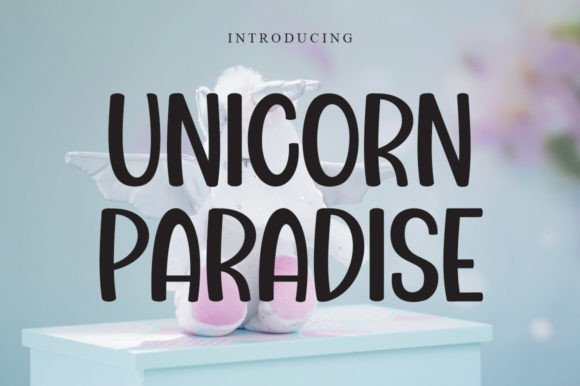
Unicorn Paradise: A Playful Display Font for Digital Branding
I was staring at a blank Figma file, trying to decide on the typography for a new landing page. The client wanted something that felt magical, whimsical, and distinctly playful, but I needed it to remain legible on mobile screens. Standard serif fonts felt too serious, and generic sans serifs lacked character. That’s when I tested Unicorn Paradise. It wasn’t just a font choice; it was a design pivot that changed the entire mood of the project.
As a web designer, I spend a lot of time evaluating typefaces not just for how they look in isolation, but for how they behave in a responsive layout. Unicorn Paradise is a display font that immediately brings a sense of fantasy and charm to any digital space. Its unique curves and charming style make it an excellent tool for adding a sprinkle of magic to headers, hero sections, and promotional banners without overwhelming the user experience.
First Impressions in the Hero Section
The first test for any decorative font is the hero section. This is where users form their first impression of your brand identity. When I dropped Unicorn Paradise into the main headline area, it demanded attention. Unlike a script font that can become hard to read at large sizes, or a handwritten font that might feel too casual for a professional setting, this creative font strikes a balance between fun and polished.
I placed it over a soft, pastel gradient background with a subtle image overlay. The contrast was immediate. The font’s distinct personality helped establish a clear visual hierarchy right away. Users scanning the page could instantly tell that this was a brand focused on joy, creativity, or perhaps a boutique product line. It worked beautifully for a course sales page targeting young entrepreneurs or a portfolio site for a children’s illustrator. The key was keeping the body copy simple so the display font could shine without causing cognitive load.
Readability and Mobile Responsiveness
One common mistake designers make with display fonts is assuming they work everywhere. They don’t. Unicorn Paradise is best suited for short phrases, logo text, and large headings. When I scaled the design down to mobile viewports, I had to be careful. On smaller screens, the intricate details of the letters can get lost if the font size is too small.
I found that using Unicorn Paradise for headlines larger than 32px ensured readability. For subheadings or button text, I switched to a clean sans serif font. This pairing strategy is crucial for UX-aware design. If you try to use a whimsical typeface for long paragraphs, your readers will fatigue quickly. By reserving Unicorn Paradise for high-impact areas like campaign landing pages or blog graphics, you maintain professionalism while still injecting personality.
Testing on dark backgrounds also revealed interesting dynamics. The font has enough weight to stand out against darker colors, making it ideal for modern typography trends that favor bold contrasts. However, on light backgrounds, especially those with busy textures, I had to ensure sufficient padding and spacing to prevent visual clutter. Good kerning and letter-spacing are essential when working with such expressive characters.
Font Pairing for a Cohesive Look
To build a more polished online brand experience, pairing is everything. Unicorn Paradise pairs exceptionally well with simple geometric sans serifs. The contrast between the playful, curved lines of the display font and the neutral, structured lines of a body font creates a balanced composition. This combination works well for editorial design as well as e-commerce sites.
For example, in a recent project for a boutique online store, I used Unicorn Paradise for the "Sale" banners and product category headers. For the product descriptions and navigation menus, I used a lightweight sans serif. This approach guided the user’s eye naturally through the content. The decorative font acted as a signpost, drawing attention to important information, while the supporting typography ensured that the actual content remained easy to scan. This distinction helps improve user engagement by making the interface feel intuitive rather than chaotic.
When to Use Unicorn Paradise
- Hero Headlines: Capture attention immediately with a strong, memorable first impression.
- Call-to-Action Areas: Use it sparingly on buttons or links to add a touch of flair to conversion points.
- Social Media Graphics: Perfect for Instagram posts or Pinterest pins where visual impact is key.
- Digital Ads: Stand out in crowded feeds with a unique typeface that conveys emotion.
- Portfolio Headers: Showcase creativity and personal style in creative fields.
Technical Considerations for Web Design
Before integrating Unicorn Paradise into a live website, there are practical steps every designer should take. First, check the included styles. Does the font family offer multiple weights? While many display fonts come in just one or two variations, having access to lighter or bolder variants can help with visual hierarchy. If only one weight is available, rely on sizing and color changes to create depth.
Start by experimenting with it in non-critical areas, like footer credits or decorative dividers, to see how it fits your existing style. Then, gradually introduce it into more prominent positions as you refine your layout. With thoughtful application, Unicorn Paradise can transform a standard web design into a whimsical destination that visitors love to explore.